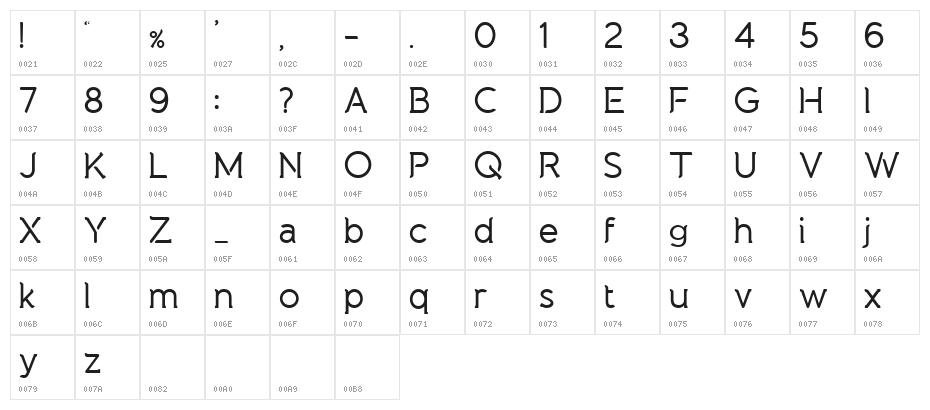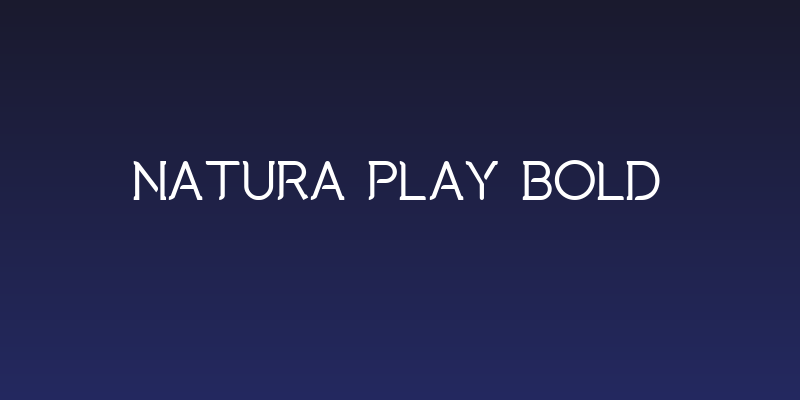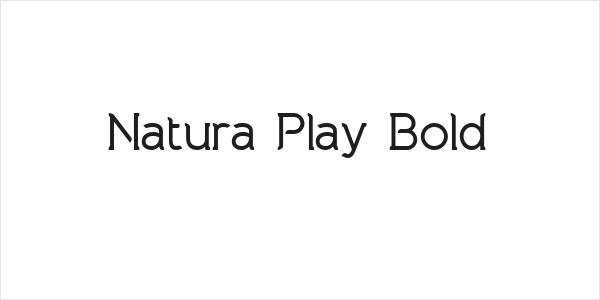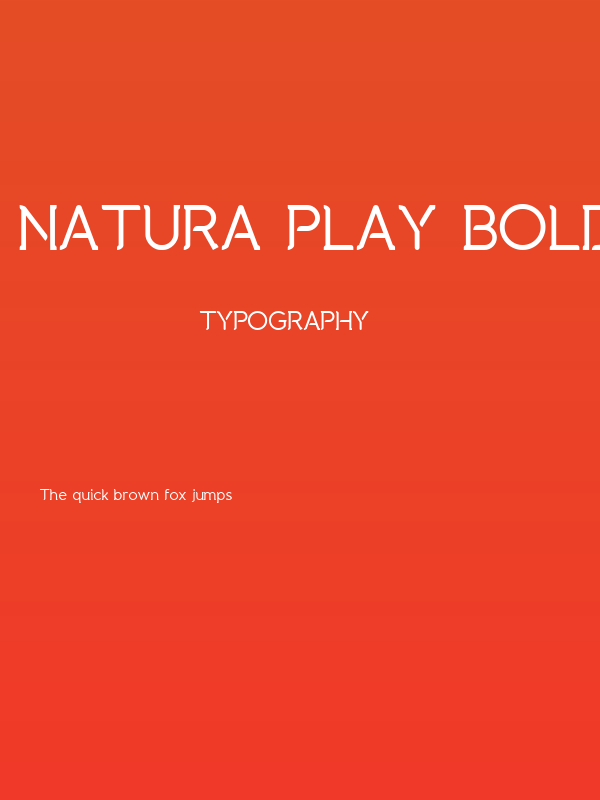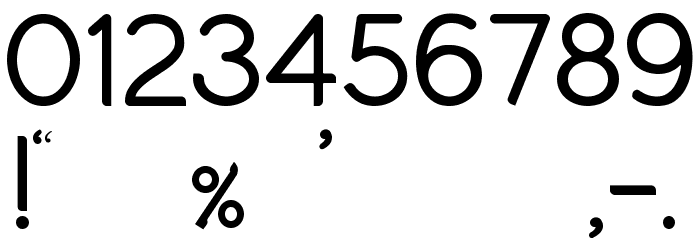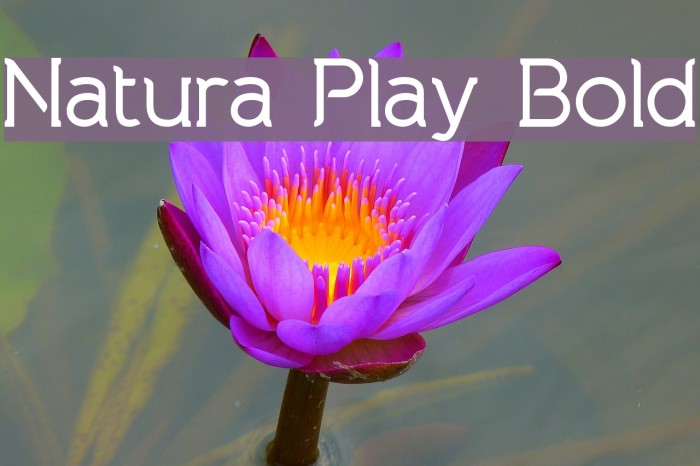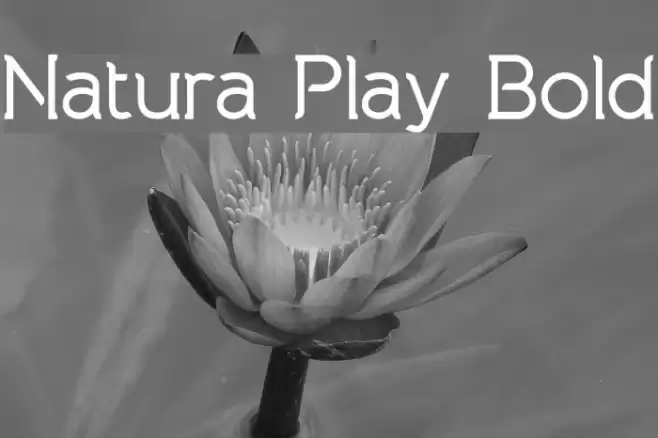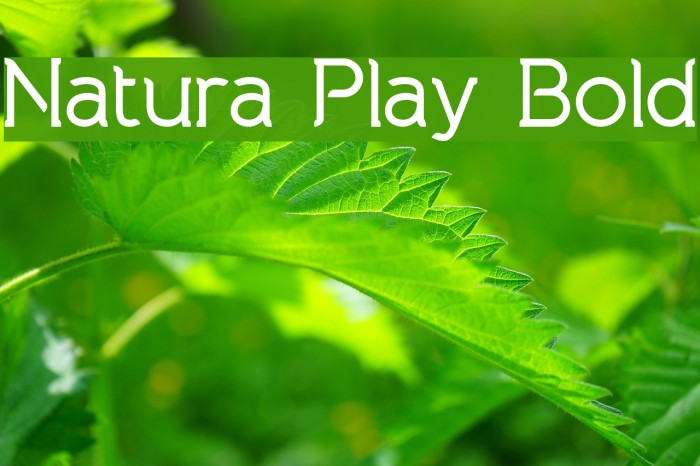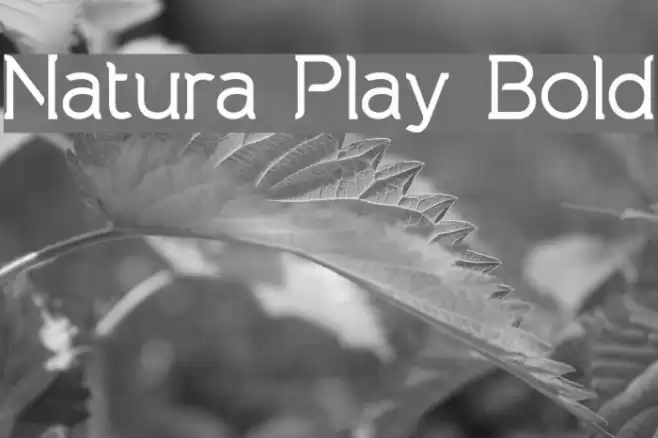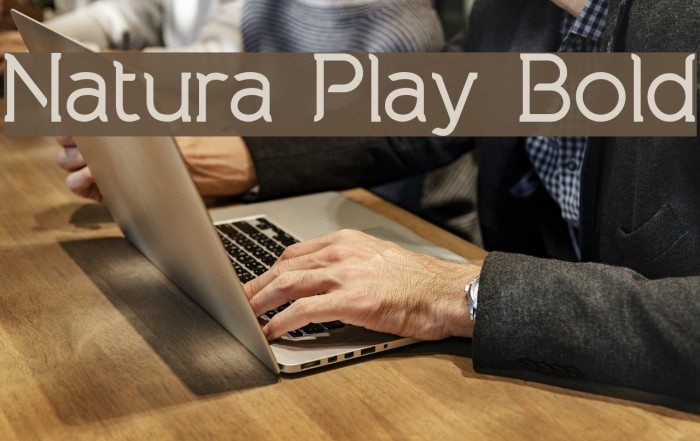
Natura Play Bold Font
Natura Play Bold Description
This font features a playful and modern design with a bold presence. The characters are crafted with a geometric flair, showcasing clean lines and smooth curves. The uppercase letters are distinct with a slight angular touch, while the lowercase letters maintain a rounded and approachable appearance. The numerals are consistent with the overall style, offering clarity and balance. Special characters are thoughtfully integrated, enhancing the font's versatility. The overall aesthetic is both contemporary and friendly, making it suitable for a variety of creative applications.
| Use Case | Headlines, Logos, Branding |
| Proposed Projects | Ideal for branding, children's books, playful advertising, and modern web design. |